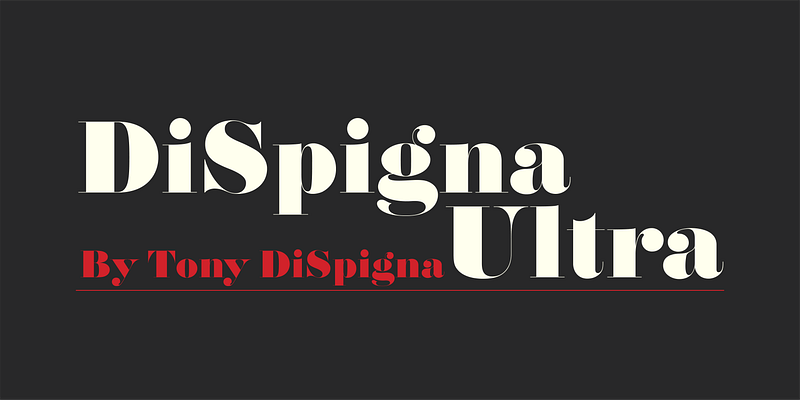
DiSpigna Ultra Font Free Download is a bold and striking display typeface with a modern, ultra-weighted design. Featuring strong, thick letterforms and a high-impact aesthetic, this font is perfect for projects that need to make a statement, such as logos, posters, headlines, branding, and any design where maximum visibility is required.
DiSpigna Ultra Font Free Download combines contemporary design with a strong, sturdy structure. Its bold weight ensures it stands out in both digital and print formats, making it ideal for large-scale designs, advertising, and creative projects that demand attention and strength.
The font pairs well with lighter sans-serifs or minimalistic typefaces to balance its heavy presence, creating an impactful typographic composition.